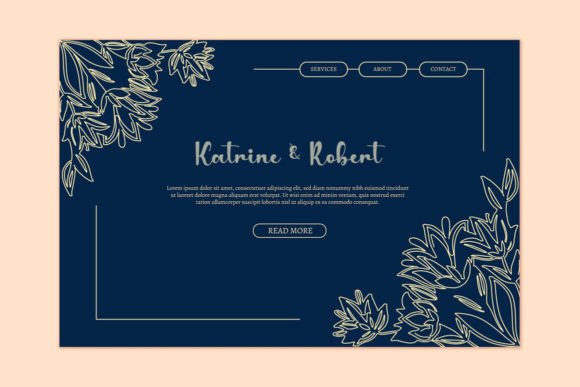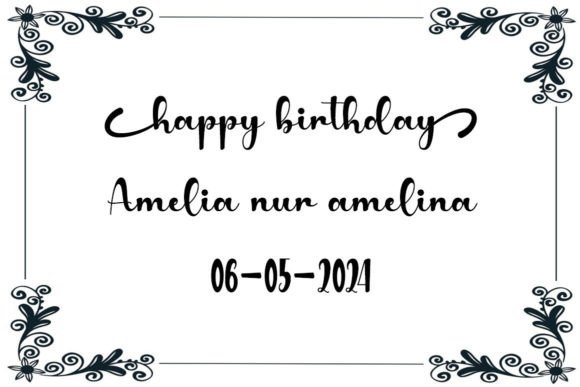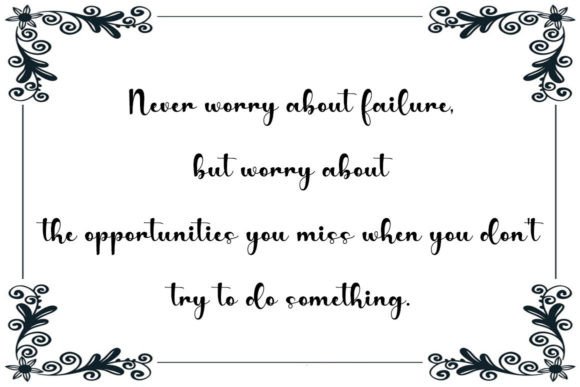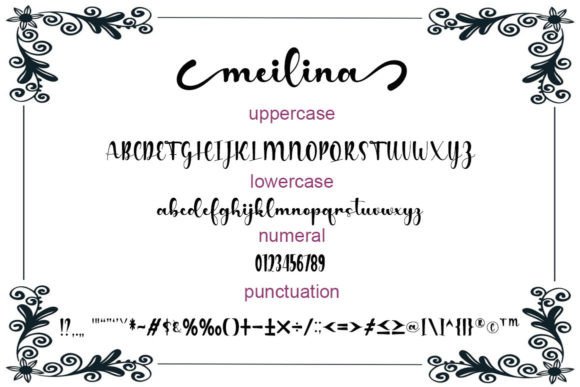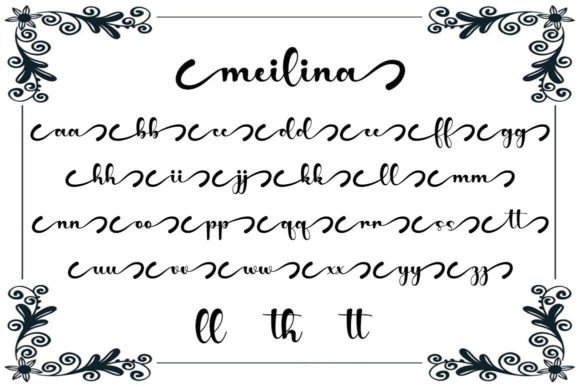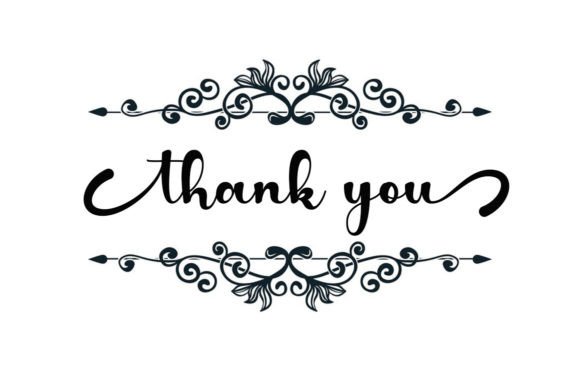
Introduction to Meilina Font
Have you ever found yourself lost in the creative process, searching for that perfect font to elevate your design project? It’s a moment we’ve all been there, staring at our screens, trying to match the perfect vibe with the right typography. But what if I told you that there’s a font that can take your project to the next level? Enter the enchanting Meilina Font, a beautiful handwritten font that’s sure to captivate your audience.
As a designer, you know how valuable a high-quality design resource can be. That’s why Meilina Font is a game-changer. With its PUA encoded feature, you can access all the glyphs and ligatures with ease, giving you the creative freedom to express yourself without any limitations.
Whether you’re working on a logo, branding, quotes, or even designing a tote bag, Meilina Font is the perfect design companion to help you achieve your creative vision.
- Meilina Font supports a wide range of languages and offers a clear, readable font style, making it ideal for various design applications.
- Meilina Font is designed to be versatile and can be used in a variety of creative projects, from digital art to print design.
Honest Review: Meilina Font
As a designer, I’ve had the chance to work with a wide range of fonts, but the Meilina Font caught my eye for its unique charm. I downloaded it for free, and I must say, it’s a fantastic addition to my design resource library.
- Smooth, elegant lines that add a touch of sophistication to any design
- Works well for both print and digital designs, including logos, typography, and web content
- Transparent background, making it easy to use with any design element
However, I did encounter some limitations with the Meilina Font. While it’s free to download, the font library is limited, and I found myself wishing for more variation in the font styles.
- Only a few font styles available, which can make it feel limited for more complex designs
- Not ideal for projects that require a wide range of font sizes and styles
Overall, I’m impressed with the Meilina Font, and I would definitely recommend it for designers working on creative projects. While it has some limitations, its unique charm and high-quality design make it a valuable addition to any design library.